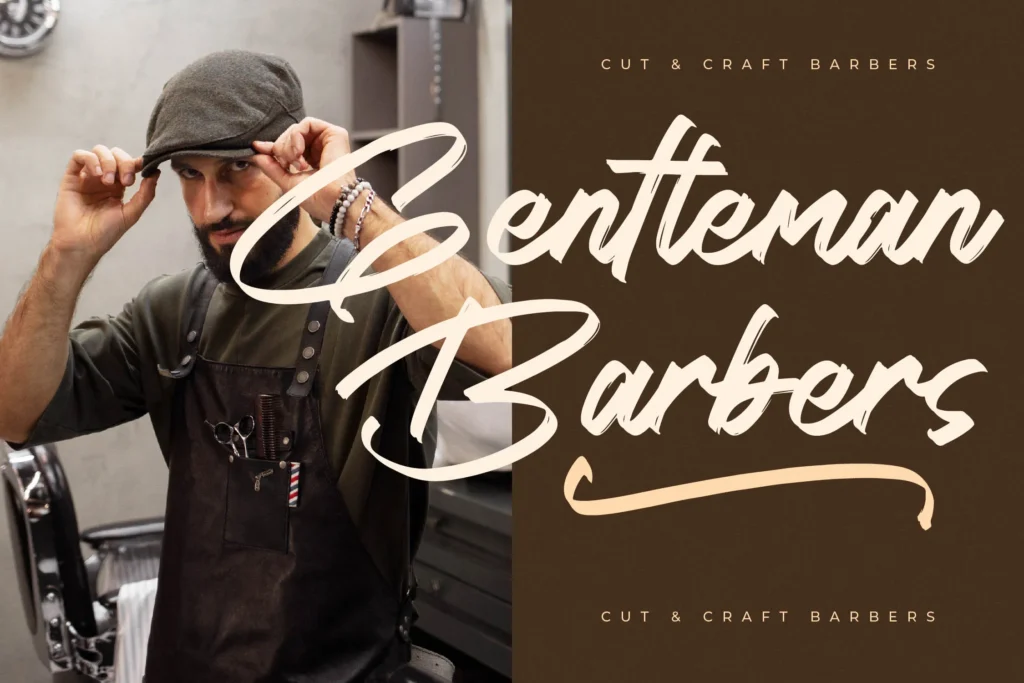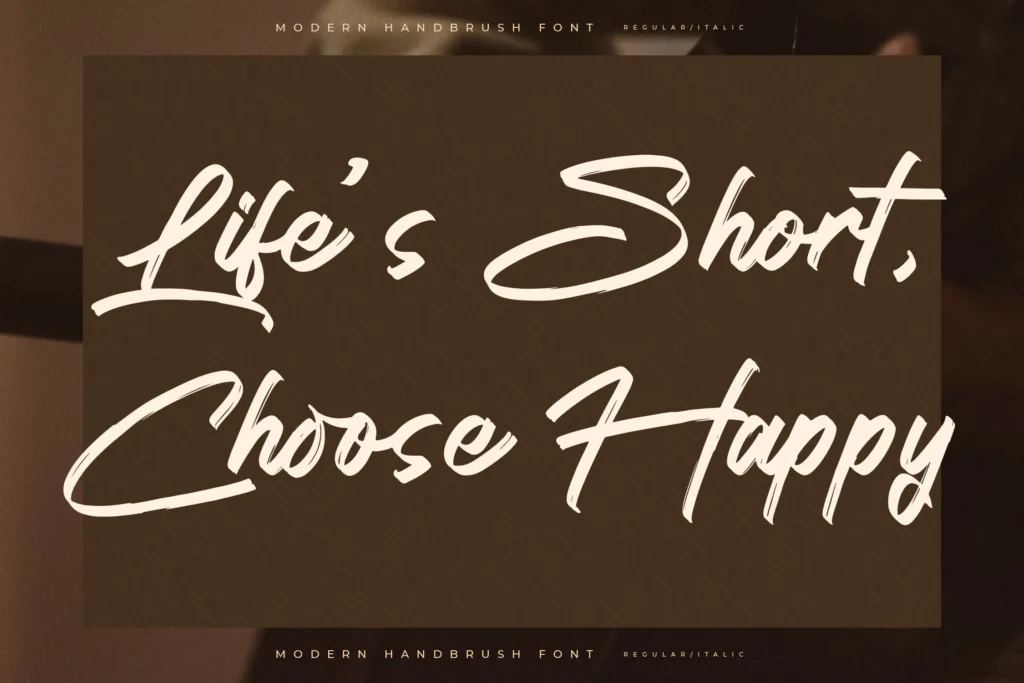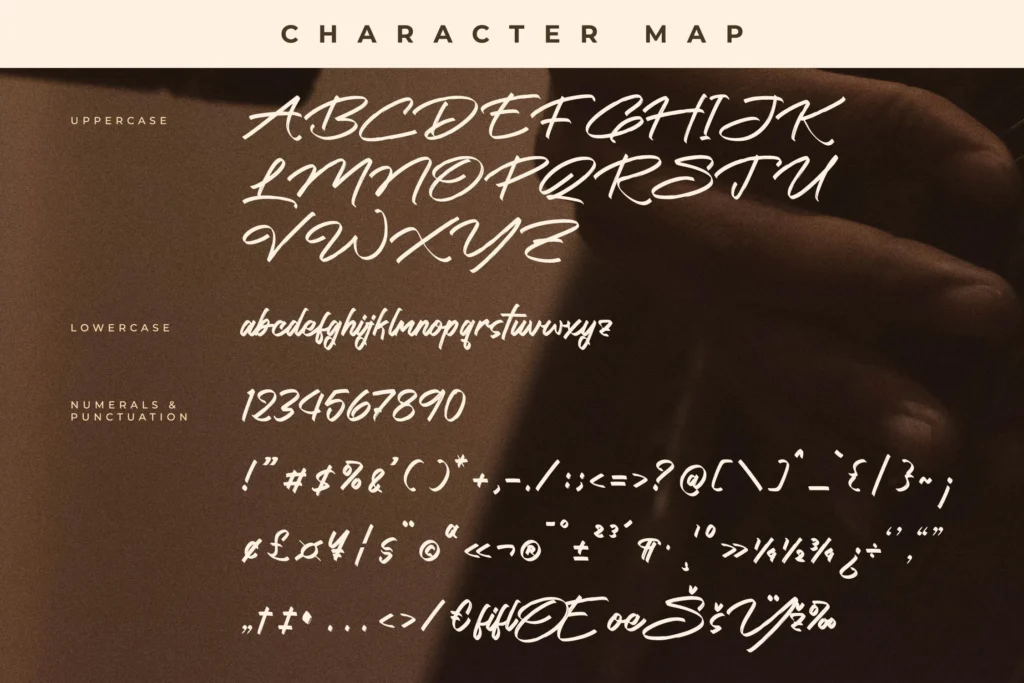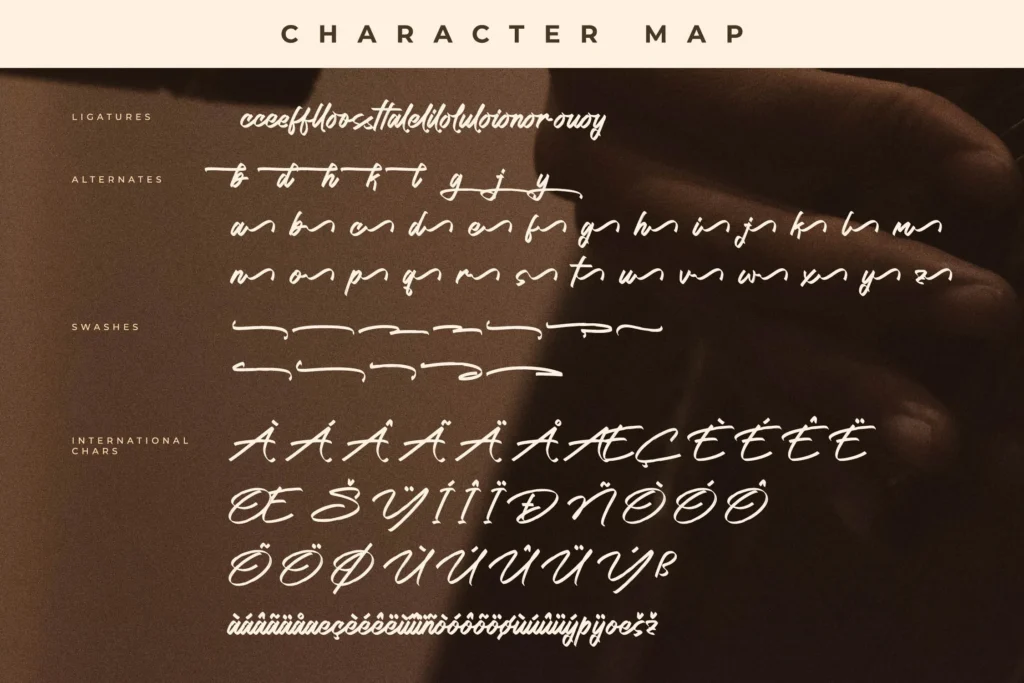
Sockyhat Font is a stylish modern handbrush font designed to bring a personal and energetic touch to your creative work. With its bold strokes and natural flow, this brush font is perfect for adding a handcrafted feel to your designs. Whether you’re working on digital projects or printed materials, Sockyhat can easily elevate your visual appeal.
This script font is incredibly versatile and can be used for a wide range of purposes. It works beautifully for logos, branding, and packaging, giving your products a trendy and unique look. Designers love using Sockyhat for t-shirts, posters, mugs, and even book covers because of its casual yet elegant personality.
From wedding invitations to greeting cards and photography watermarks, Sockyhat adds a warm and creative touch to any layout. It’s also great for name cards, labels, and special events. Wherever you want a touch of creativity and class, Sockyhat Font is ready to make your ideas stand out.